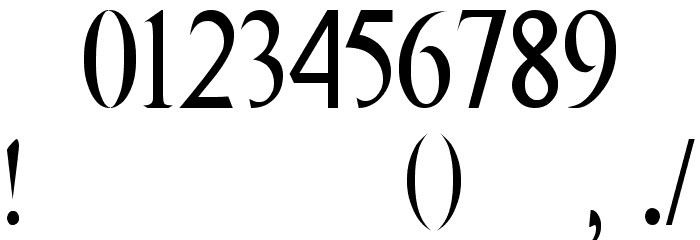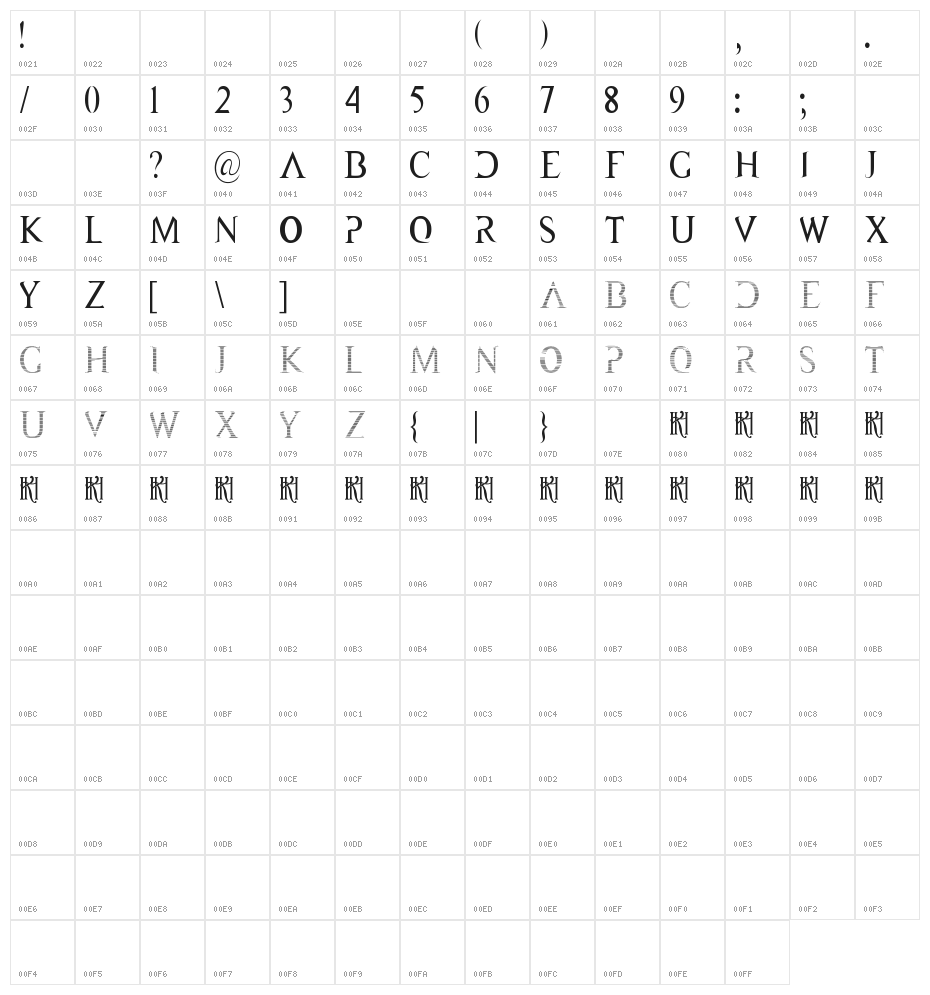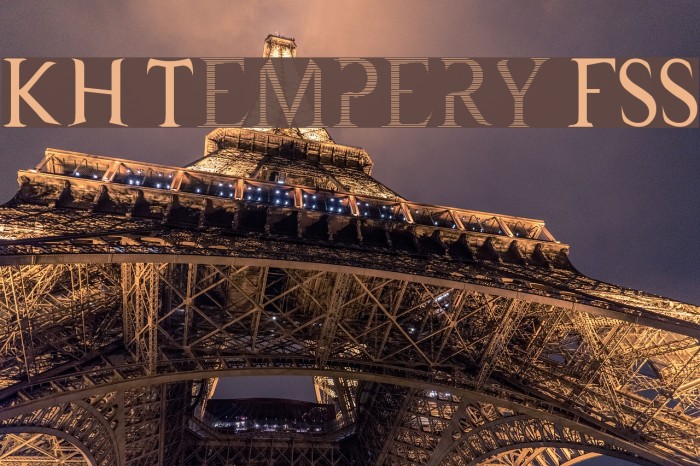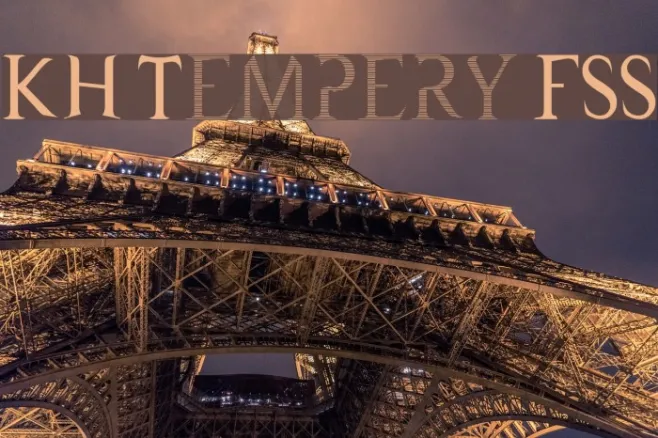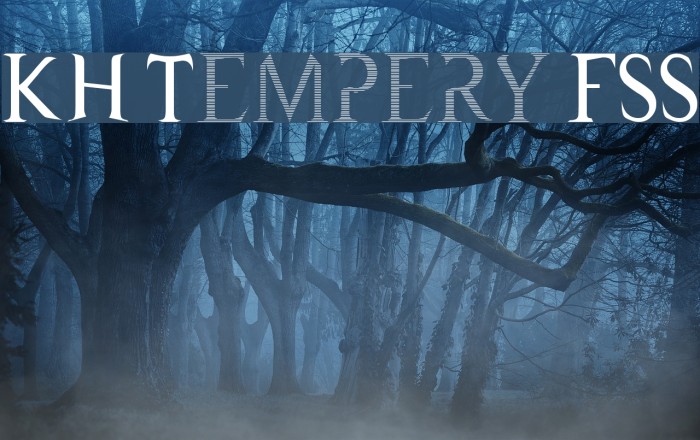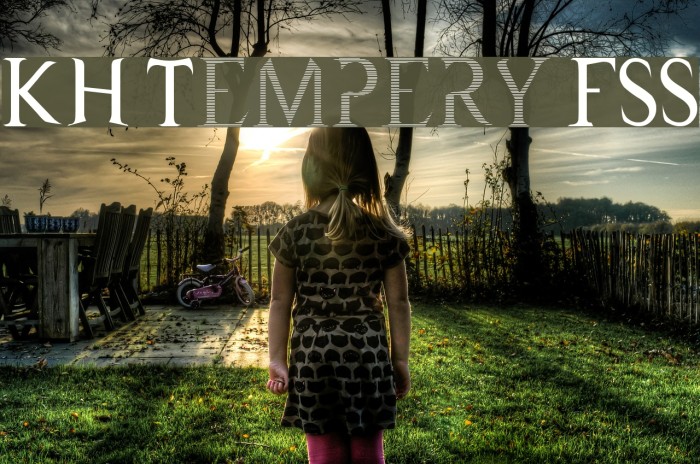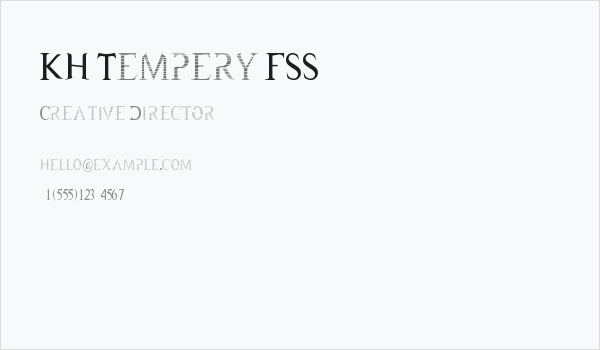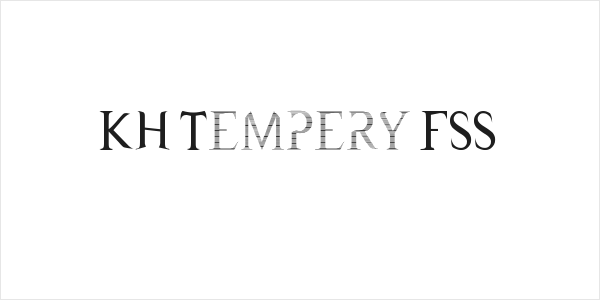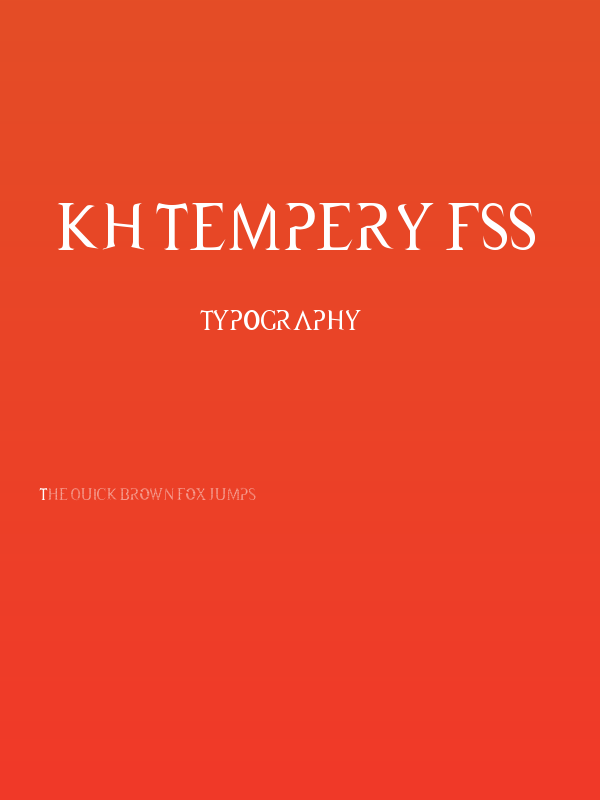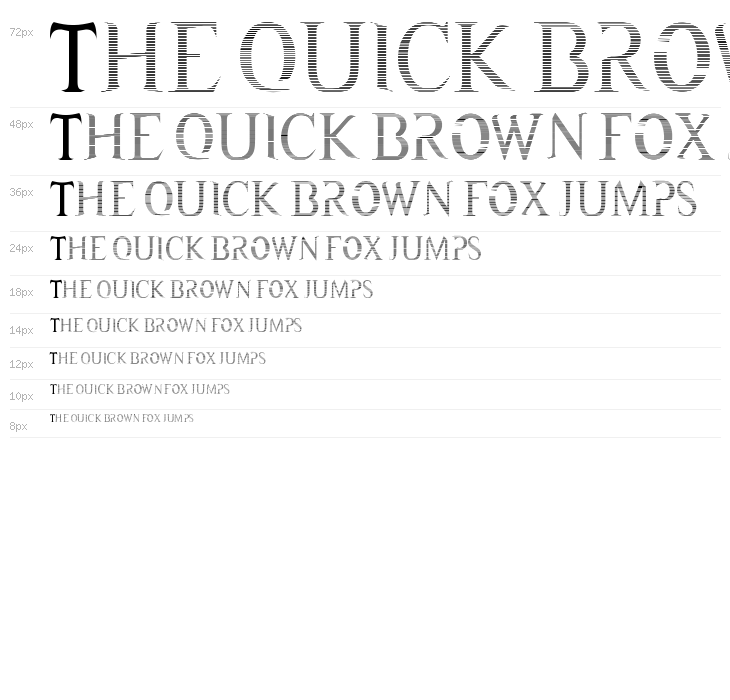
KH Tempery FSS Font
KH Tempery FSS Description
This font features a unique blend of modern and classic elements, characterized by its sharp, angular serifs and distinct geometric shapes. The uppercase letters exhibit a bold presence with a slight curvature that adds a touch of elegance. The lowercase letters maintain a consistent style, offering a harmonious balance between the two cases. The numerals are designed with clarity and precision, making them easily readable. Special characters are crafted with the same attention to detail, ensuring they complement the overall aesthetic. The font's high contrast in stroke thickness enhances its visual impact, making it suitable for various design applications.